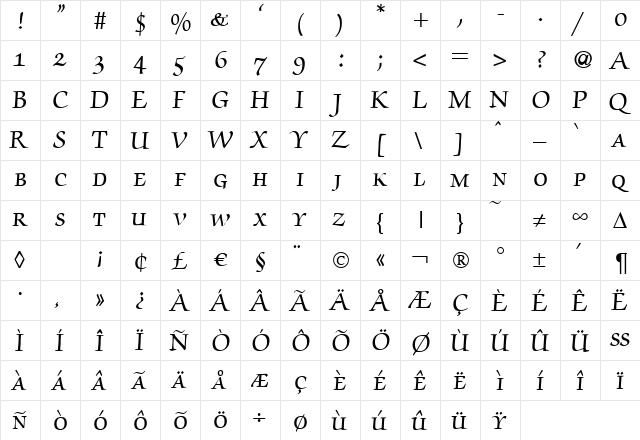
ZabriskieScriptSmc Bold Font Preview
Design Context for ZabriskieScriptSmc Typeface
ZabriskieScriptSmc flows with the natural rhythm of handwritten lettering, making it ideal for designs that call for warmth and personal expression. Its bold stroke weight gives it real presence on the page.